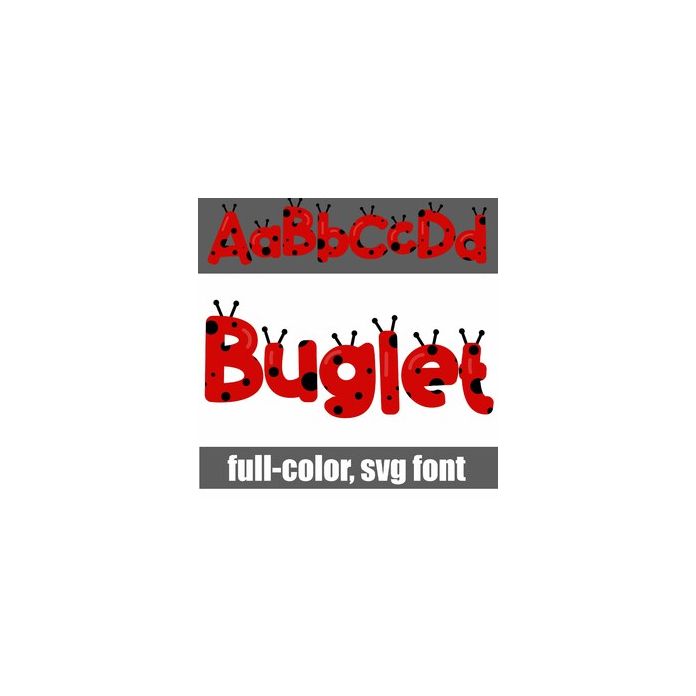
This full-color font features a ladybug look and antenae on each letter. This font works best for titles, displays, posters and more. Please note color fonts will show as black in non compatible programs. This font type is compatible with Silhouette Studio.